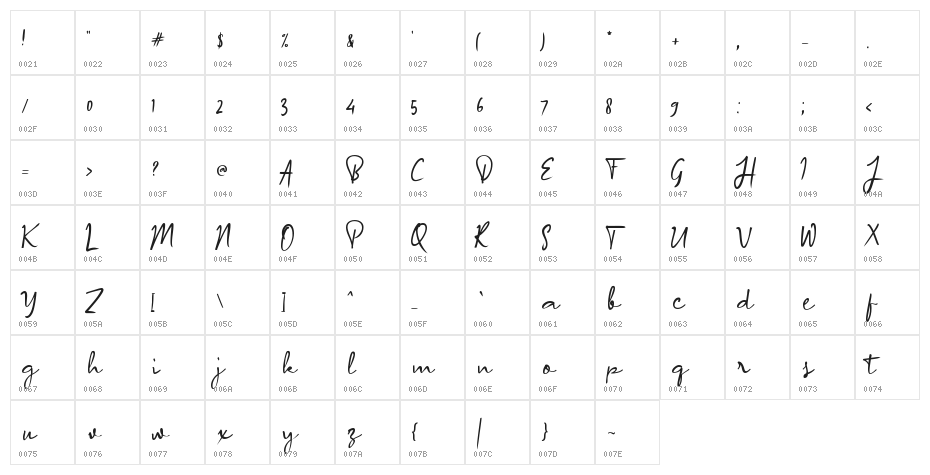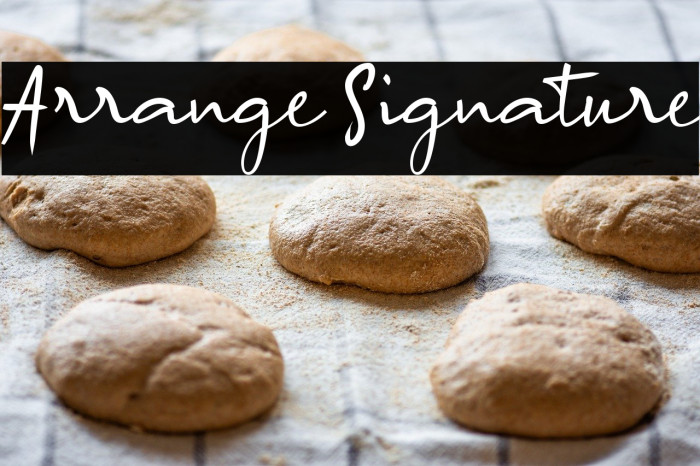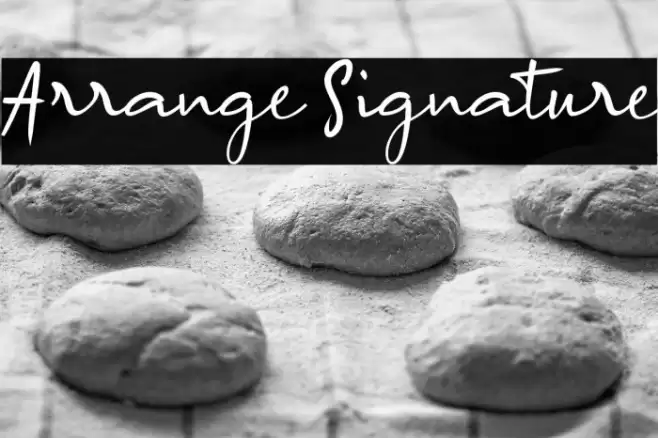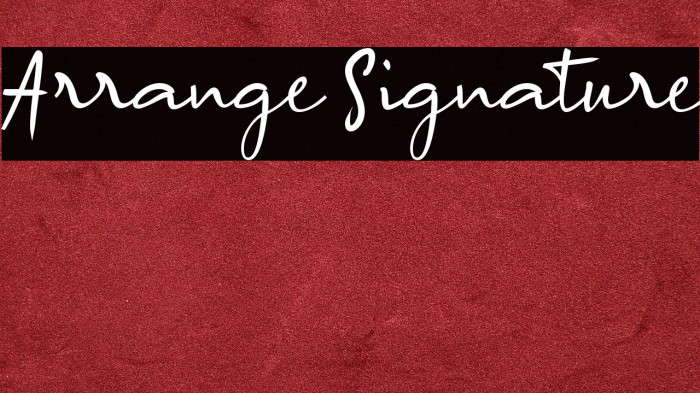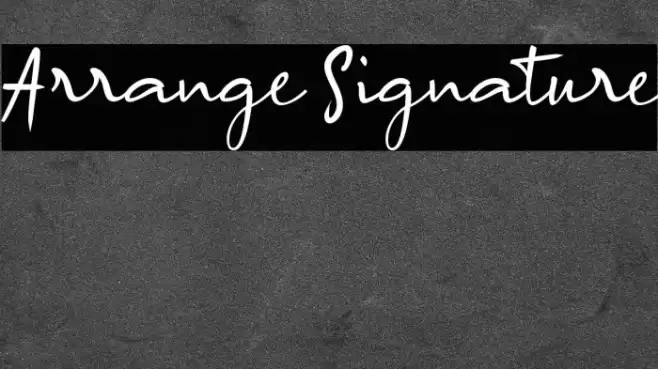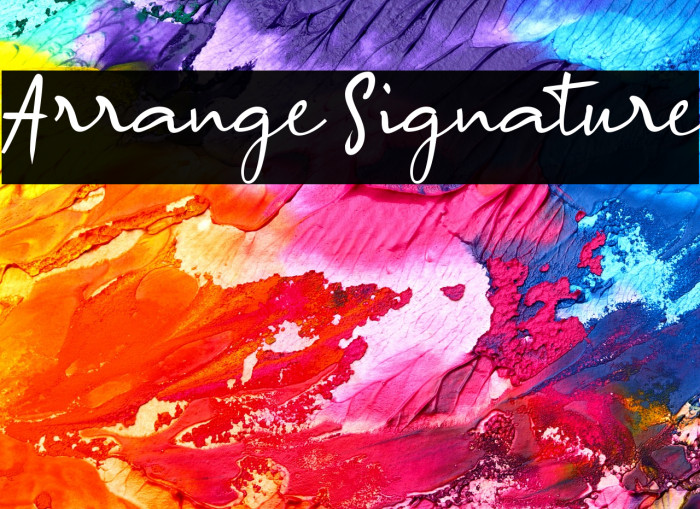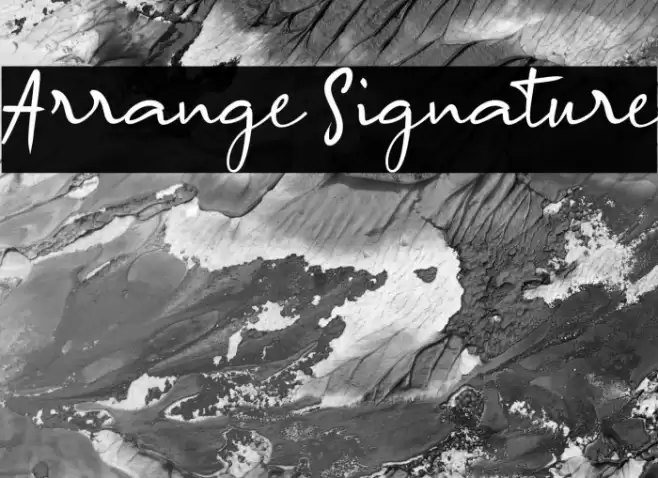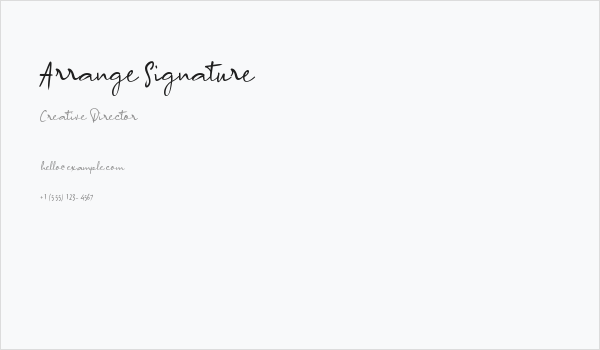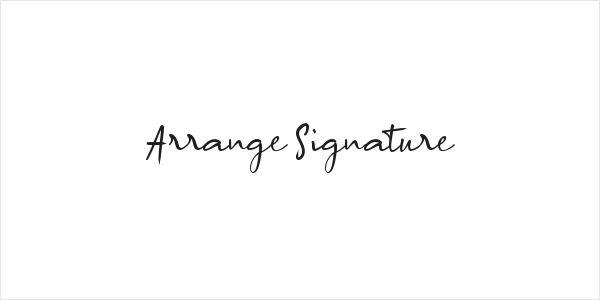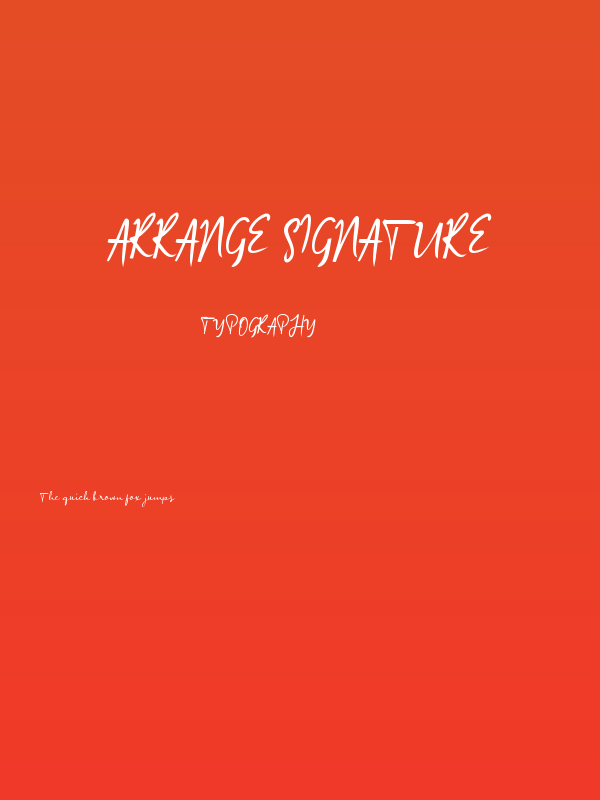
Arrange Signature Font
Arrange Signature Description
This font exudes a casual yet elegant handwritten style, characterized by fluid strokes and a natural flow. The uppercase letters are bold and slightly slanted, giving a dynamic appearance, while the lowercase letters maintain a consistent rhythm with smooth curves and loops. The numerals are clear and legible, complementing the overall aesthetic. Special characters are thoughtfully designed, maintaining the font's cohesive look. This font is versatile, suitable for both formal and informal contexts, adding a personal touch to any design.
| Proposed Projects | Ideal for wedding invitations, personal branding, greeting cards, and social media graphics. |